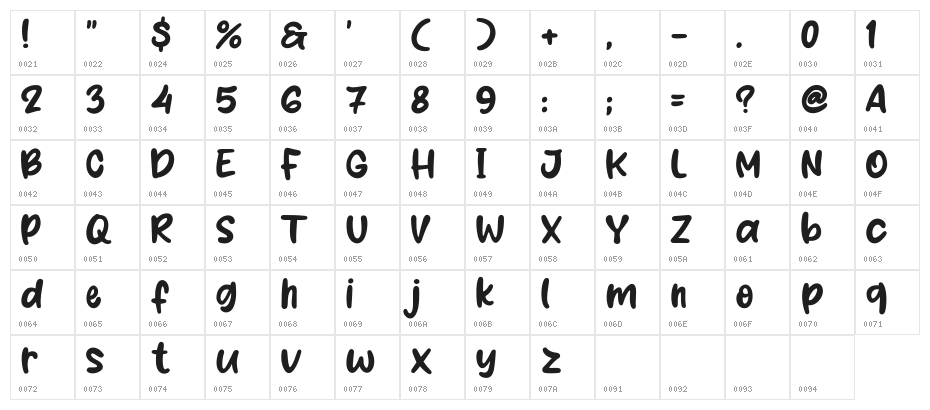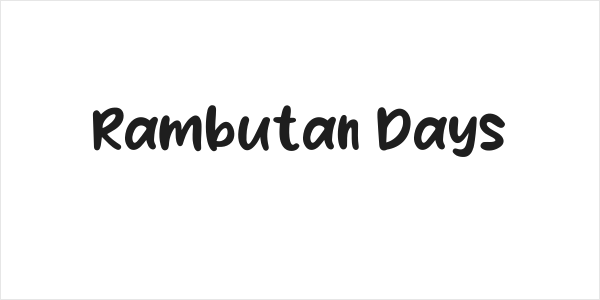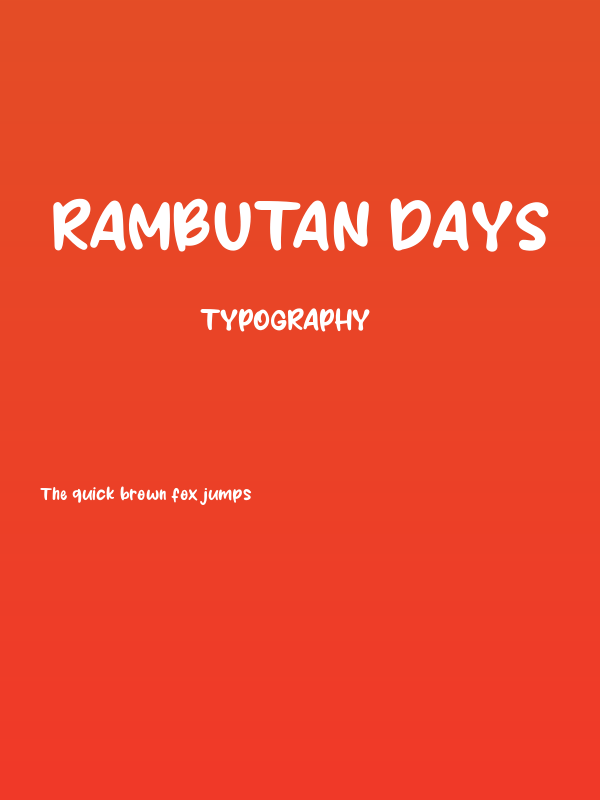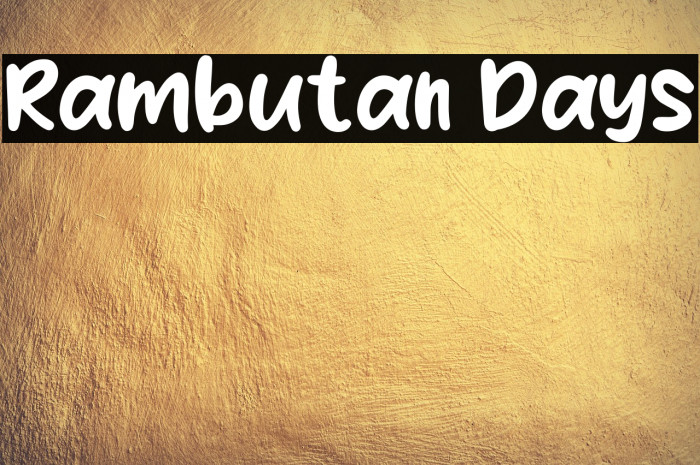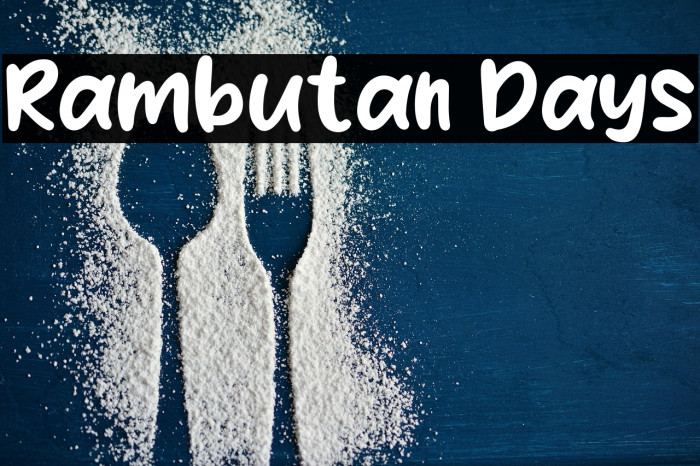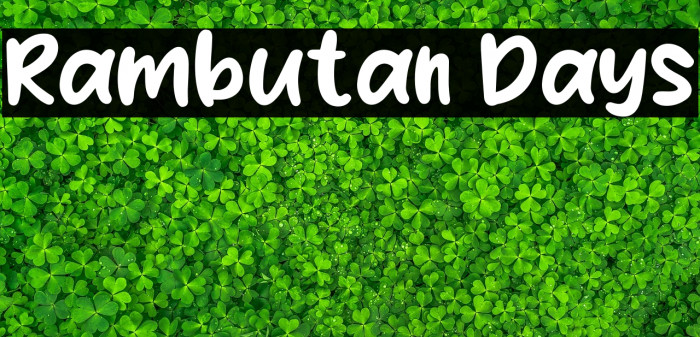
Rambutan Days Font
Rambutan Days Description
This playful and bold font features a handwritten style with a lively and energetic appearance. The characters are rounded and slightly irregular, giving them a friendly and approachable feel. The uppercase and lowercase letters maintain a consistent weight, creating a harmonious look across the text. The numbers and special characters are designed to match the whimsical style of the alphabet, ensuring a cohesive appearance. This font is perfect for projects that require a fun and informal touch, such as children's books, greeting cards, or playful branding. Its unique style makes it stand out, while still being highly readable.
| Proposed Projects | Ideal for children's books, greeting cards, playful branding, and informal designs. |